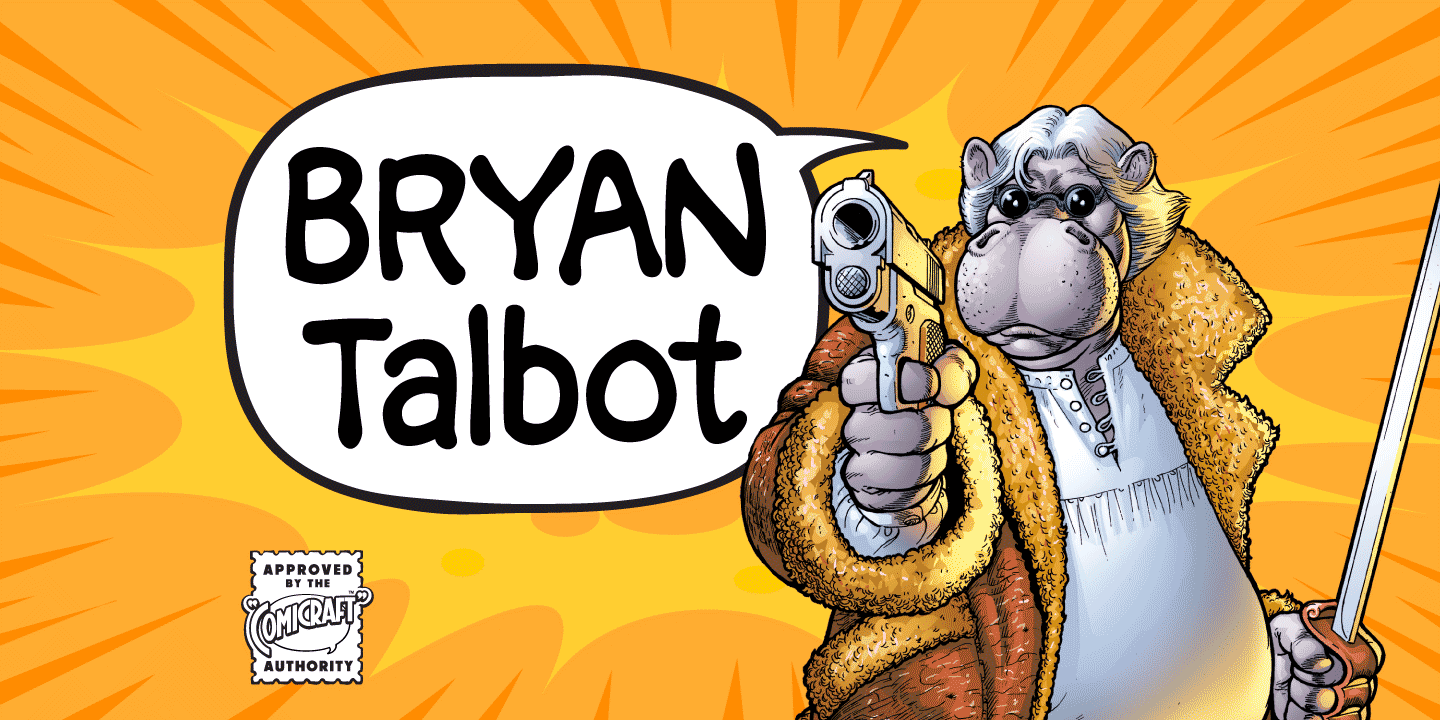
The Bryan Talbot Font is a distinctive and atmospheric typeface, drawing inspiration from the unique hand-lettering often found in graphic novels and comic books, particularly those with a gritty or alternative edge. Imagine its bold and expressive characters filling the speech bubbles of a dark fantasy comic, adding an authentic, raw feel to independent movie posters, or creating impactful titles for alternative music albums and concert flyers. Its unconventional yet highly readable forms also make it an excellent choice for unique branding for creative ventures, striking website headers, and compelling social media graphics that aim to stand out. Whether you're seeking a rough, rebellious aesthetic or a truly personalized, hand-drawn look, Bryan Talbot Font delivers with its strong presence, ensuring your visuals have an unforgettable, artistic edge.
What makes Bryan Talbot Font so exciting is its ability to infuse designs with an immediate sense of narrative and artistic individuality. It steps away from polished perfection, embracing a more organic, handcrafted feel that resonates deeply with audiences looking for authenticity. This font isn't just about conveying text; it's about setting a mood, evoking a specific genre, and giving a voice to your creative projects. It allows designers to break free from conventional typography and embrace a style that is both visually arresting and deeply expressive. Its unique character makes it a powerful tool for creators who want their work to convey a story or a distinct artistic vision.
The Bryan Talbot Font family typically focuses on delivering strong, consistent variations that enhance its core comic-book inspired aesthetic. While the primary Bryan Talbot Regular provides that signature hand-lettered appearance, you might find companion styles such as a more impactful Bryan Talbot Bold for emphasis, or possibly an Bryan Talbot Outline version that adds a different visual texture. Given its stylistic roots, the family may also include unique ligatures or alternate glyphs that allow for even greater customization, mimicking the natural flow and variation of true hand-lettering. These family members ensure that designers can maintain a cohesive and powerfully distinct artistic identity across all elements of their project, from prominent splash pages to intricate captions.